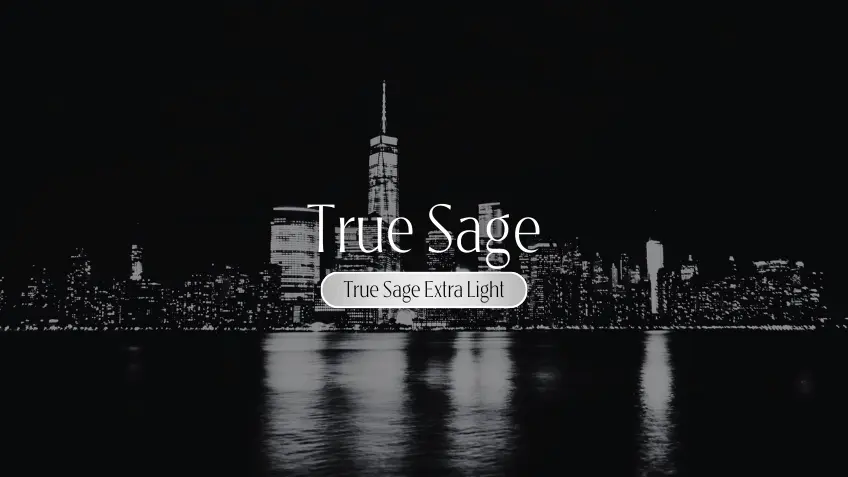
True Sage Extra Light
True Sage Extra Light Font
The font True Sage Extra Light, designed by Kadek Mahardika, falls under the Serif category & True Sage font family. Its smooth, flowing letterforms make it a versatile choice for projects that require both elegance and readability. True Sage is particularly well-suited for Branding, Headlines, Titles, Website, Social Media, Print Media and Logos. With its balance of simplicity and decorative appeal, this font brings a polished touch to both personal and professional designs.